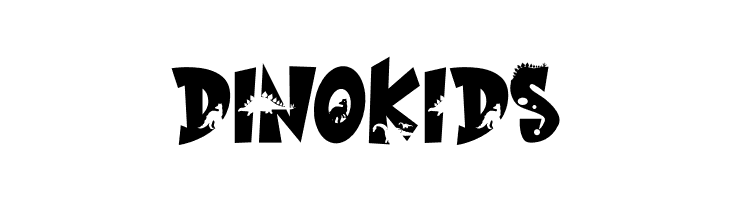
( Fonts by Graphix Line Studio )
A playful, bold font with textured, decorative elements.
( Fonts by Khurasan )
A playful, bold font with rounded, bubbly characters perfect for fun designs.
( Fonts by Kong Font )
A bold, dinosaur-themed font with playful, rugged edges.
( Fonts by Kong Font )
A dinosaur-themed decorative font with playful, bold characters.
( Fonts by Kong Font )
A playful, dinosaur-themed font with creative and whimsical letterforms.
( Fonts by twinletter )
A bold, playful font with thick, rounded characters and a whimsical style.
( Fonts by Mr.Soon Design )
A playful, dinosaur-themed font with bold, whimsical characters.
( Fonts by madeDeduk )
A bold, geometric font with playful, chunky characters.
( Fonts by Yoga Letter )
A playful, dinosaur-themed font with bold, irregular characters.
( Fonts by Kong Font )
A bold, playful font with a chunky, whimsical design perfect for fun projects.